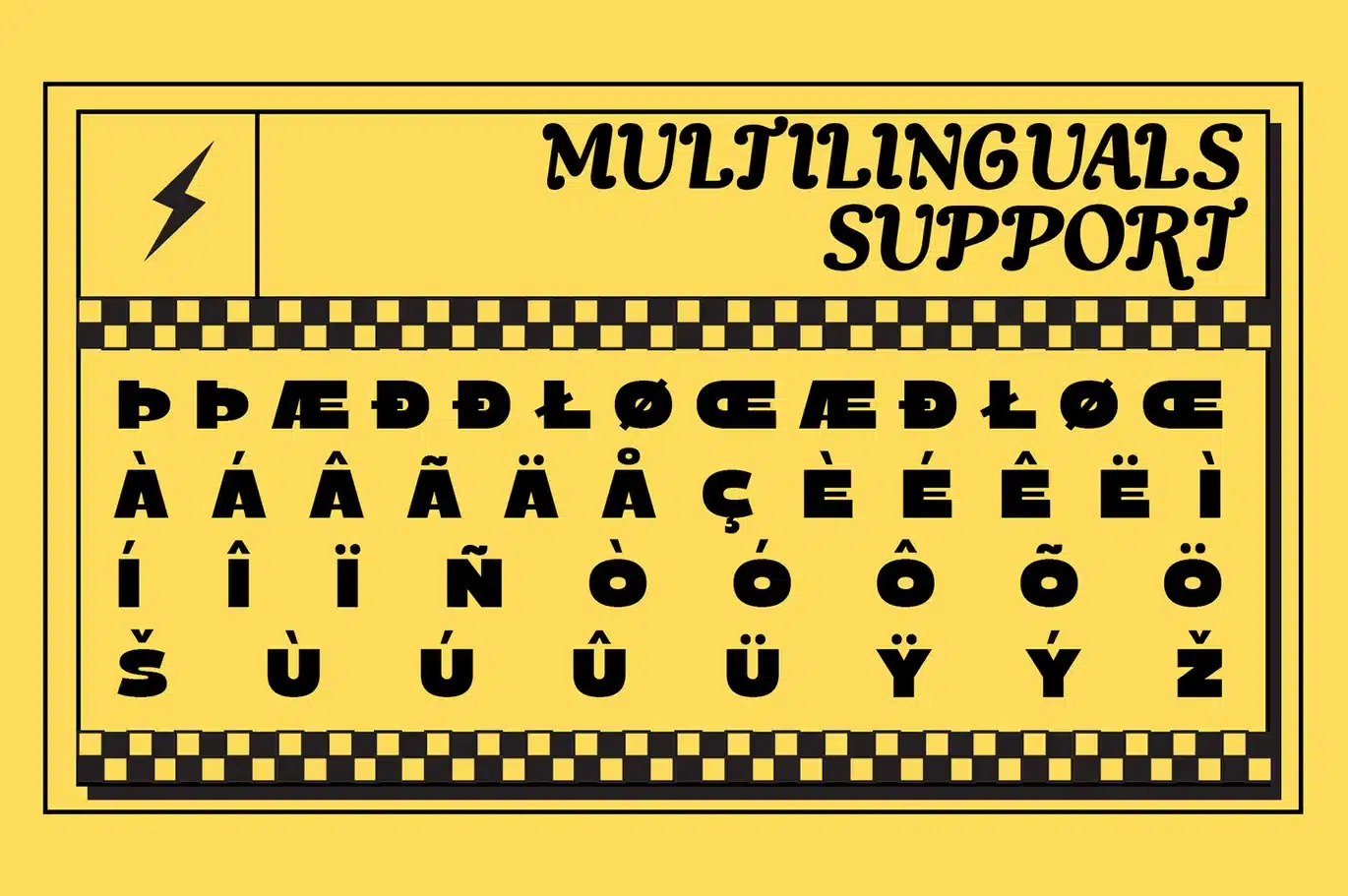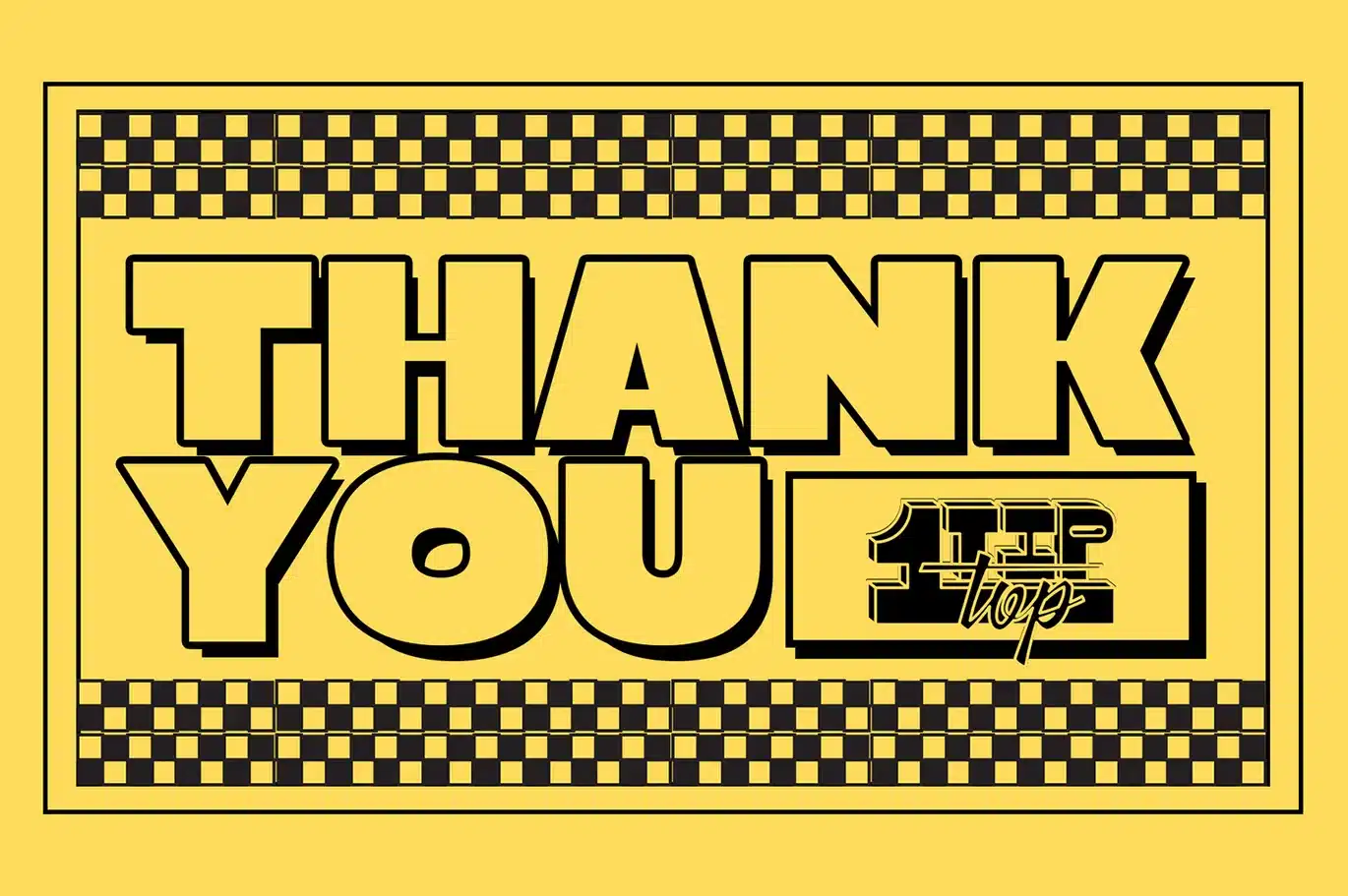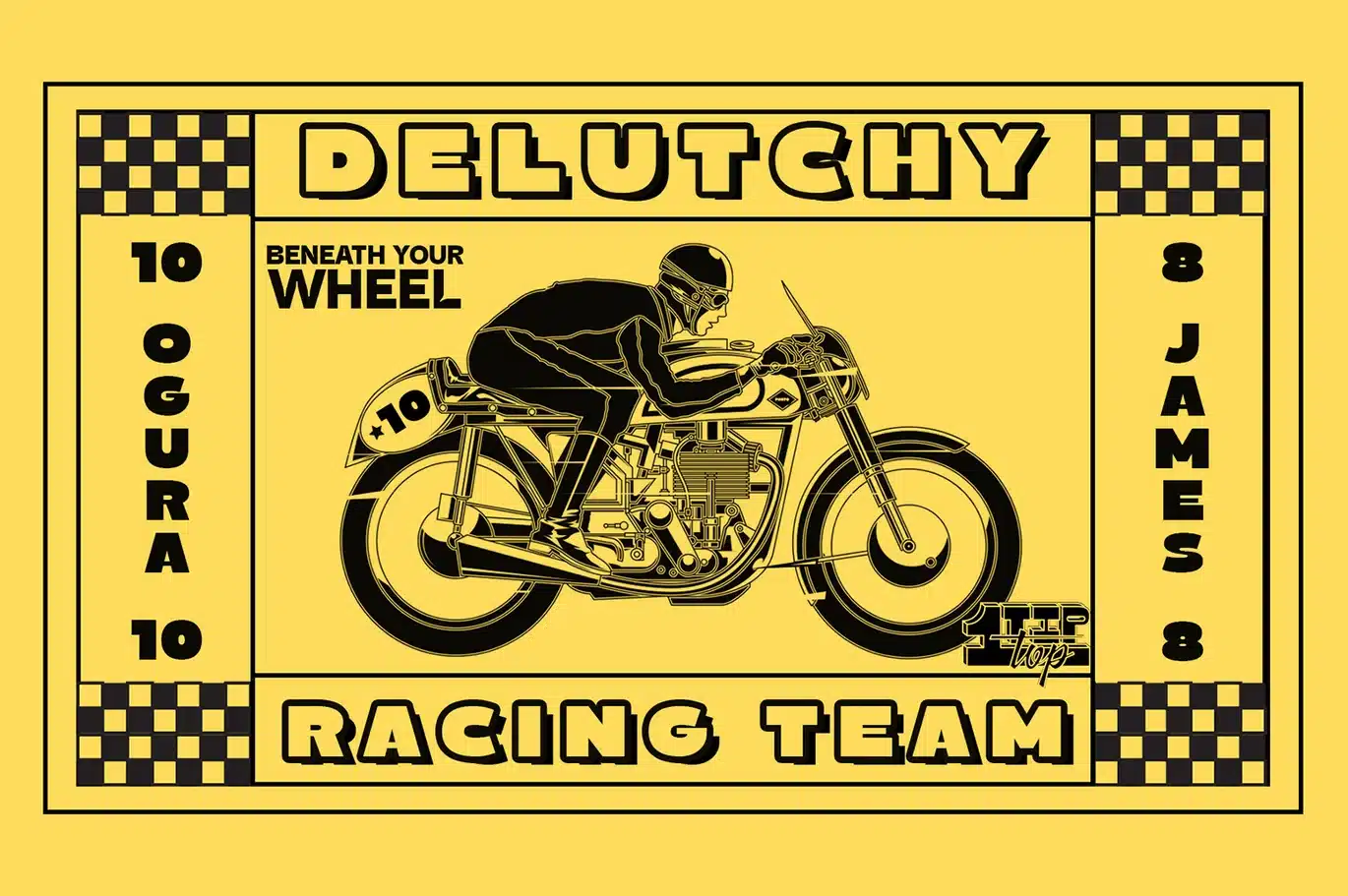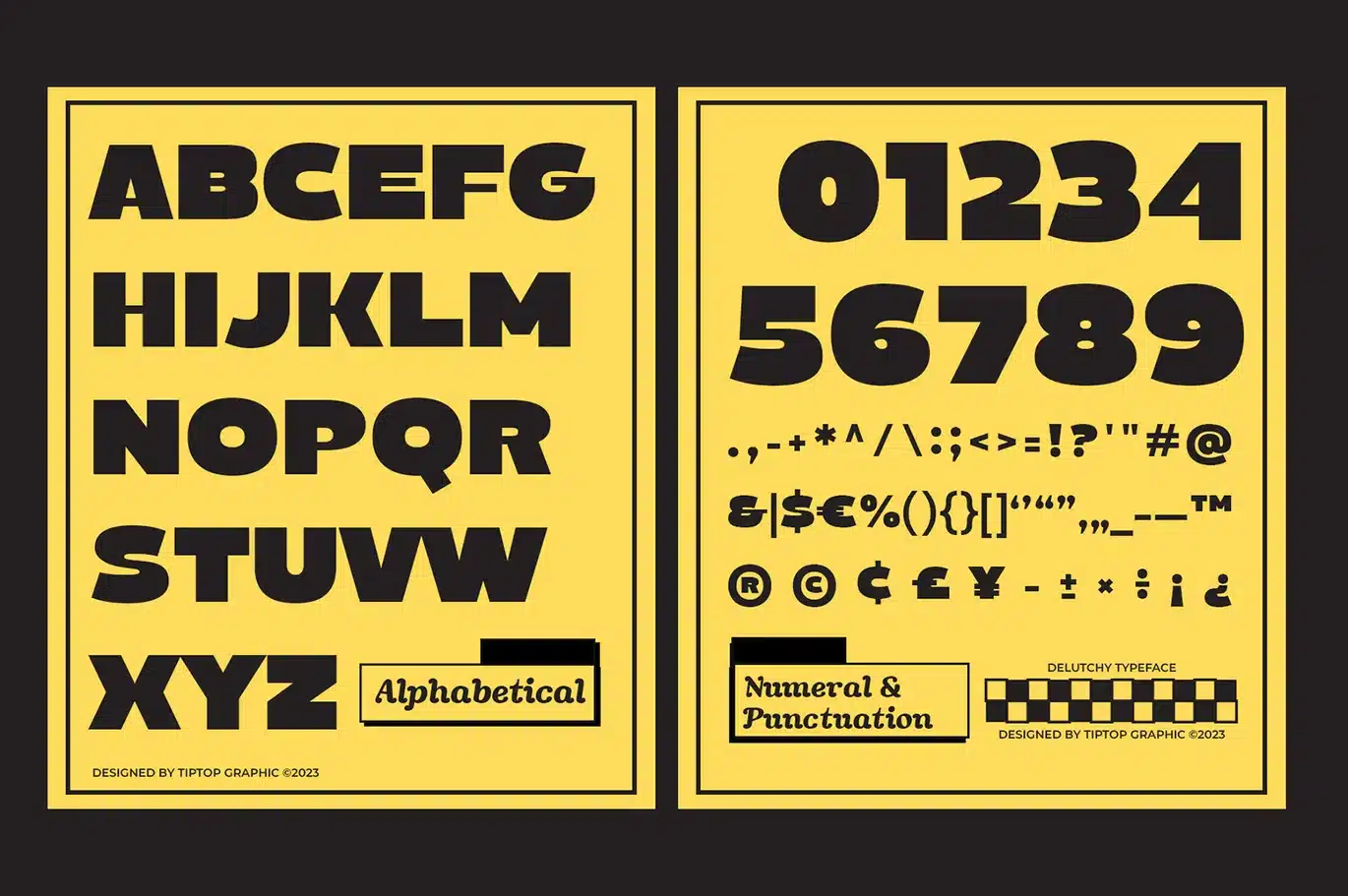
Delutchy – Display Retro Bold Font
Delutchy - Display Retro Bold Font
Delutchy is a typeface design inspired by the old motorcycle racing era, which stands out and stays clean.
This display font is suitable for Headline, Publishing, Logo, Branding, Identities, Advertising, Packaging, Event, Poster, Flyer, and other graphic works.
Delutchy | Display Retro Bold Font Features:
*All CAPS
*Multilingual Support
*Ligatures